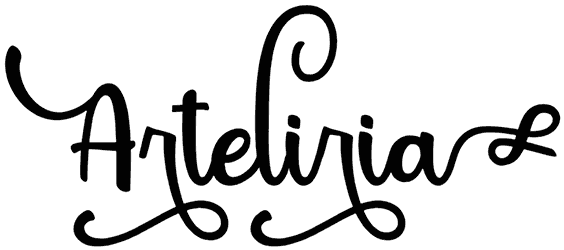
Arteliria Font
The contrasting beats in Arteliria create a beautiful and rhythmic silhouette that reminds one of music or the luxurious decorations of classic and old books.
This love font has twists and turns that can replace any additional decoration in your writing and create a grand design. For theater, fashion, clothing, and any other gorgeous idea, you can use unique Arteliria fonts to give your writing a professional and elegant look.